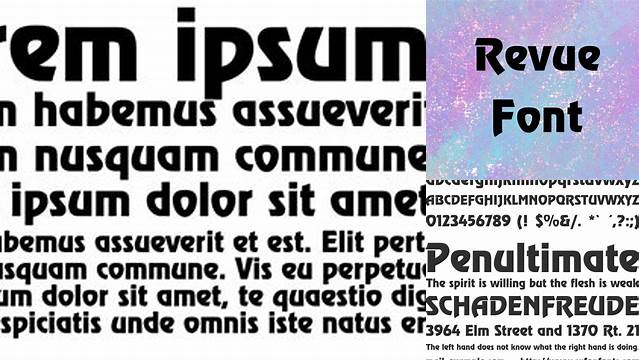
Hey guys! Are you on the hunt for a font that screams boldness and sophistication? Look no further because we're diving deep into the world of the Revue Bold font family! This guide is your ultimate resource, providing everything you need to know about this fantastic typeface, including how to snag a free download and how to use it effectively. Let's get started!
What is the Revue Bold Font Family?
So, what exactly is the Revue Bold font family? Well, it's a modern and stylish typeface that's designed to make a statement. Think of it as the typography equivalent of a power suit. It's got that certain je ne sais quoi that grabs your attention. The Revue Bold font family is known for its strong, clean lines, and its versatility. Whether you're a seasoned designer or just starting out, this font is a great tool to add to your collection. It's perfect for a wide range of applications, from headings and titles to branding materials and even body text (though you might want to use it sparingly for the latter!).
The Revue Bold font family typically comes in a variety of weights, allowing you to control the intensity and visual impact of your text. You might find light, regular, bold, and even extra bold versions, each offering a unique feel. This flexibility is what makes the Revue Bold family so popular among designers. Need something subtle? Go with the light weight. Want something that shouts from the rooftops? Choose the extra bold! It's all about finding the right balance for your project. The designers put a lot of effort into making sure that each weight complements the others, so that the entire family is a cohesive and visually appealing package. When you download the Revue Bold font family, you're not just getting one font; you're getting a whole family of fonts that can be used to create a unified and professional look. Now, think about the possibilities! Imagine the amazing things you can create! From your personal blog to an ad for a multinational company, it is your call. Make sure that you use the font to create a strong impact on whoever is looking at your content.
One of the key features that sets the Revue Bold font family apart is its legibility. Despite its bold appearance, the font remains easy to read, even at smaller sizes. This is crucial for projects where readability is paramount, such as websites, brochures, and presentations. You don't want a font that's so stylized that it's difficult to decipher! The design of the Revue Bold family carefully balances style and functionality, ensuring that your message is both visually appealing and easily understood. This thoughtful approach to design makes the Revue Bold family a top choice for designers who want a font that looks great and also works well. As a creative individual, this is a good font to choose! Make sure to select the right one that fits your project.
Understanding the Various Weights and Styles
As mentioned earlier, the Revue Bold font family usually offers various weights and styles. This is like having a whole wardrobe of fonts to choose from! The different weights, such as light, regular, bold, and extra bold, provide different levels of visual emphasis. They help to create a visual hierarchy within your design. By using different weights, you can guide the reader's eye and highlight important information. This is what is great about font families: it helps you work with your content, giving different tones and styles depending on the needs of your project. When you're downloading the Revue Bold font family, pay attention to the available styles. Do they offer italic versions? Are there condensed or expanded options? These variations can add even more depth and flexibility to your designs.
It's important to understand how the different weights and styles work together. Using a combination of weights can create a dynamic and engaging layout. For example, you could use the bold weight for headings, the regular weight for body text, and the light weight for subheadings or captions. This helps to establish a clear structure and makes your content more accessible. It is a good practice in graphic design to ensure that there are clear distinctions between the various text elements.
Where to Use the Revue Bold Font
Okay, so where can you actually use the Revue Bold font? The short answer is: pretty much anywhere you want to make a statement! Here are a few ideas to get your creative juices flowing:
- Headings and Titles: The Revue Bold font family is a natural fit for headings and titles. Its strong presence immediately grabs attention and sets the tone for your content. It's perfect for blog posts, website headers, and book covers.
- Branding and Logos: Are you working on a brand identity? The Revue Bold font can be a great choice for logos and branding materials. It conveys a sense of confidence, modernity, and sophistication. It's perfect for brands that want to project a strong and impactful image.
- Posters and Flyers: If you're designing posters or flyers, the Revue Bold font will definitely help your message stand out. Use it for headlines, calls to action, or any text you want to highlight.
- Websites and Digital Design: Revue Bold is a great option for digital design, but with a few caveats. Since this font is very bold and heavy, it should be used sparingly for body text to maintain readability. It works exceptionally well for website headers, navigation elements, and other design details where a strong visual impact is needed. This font is perfect for modern and sleek websites.
- Print Materials: The Revue Bold font works well in print materials, too. Use it for headlines, captions, or any text that needs to stand out. Just like with digital design, consider the readability and use different weights and styles.
Best Practices for Using Revue Bold
While the Revue Bold font family is incredibly versatile, it's essential to use it wisely. Here are some best practices to keep in mind:
- Consider Readability: Even though it's designed to be legible, remember that bold fonts can sometimes be harder to read, especially in large blocks of text. Use it sparingly for body text and prioritize it for headings and titles.